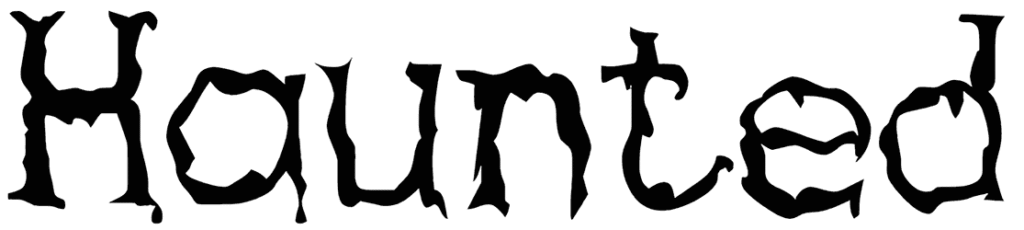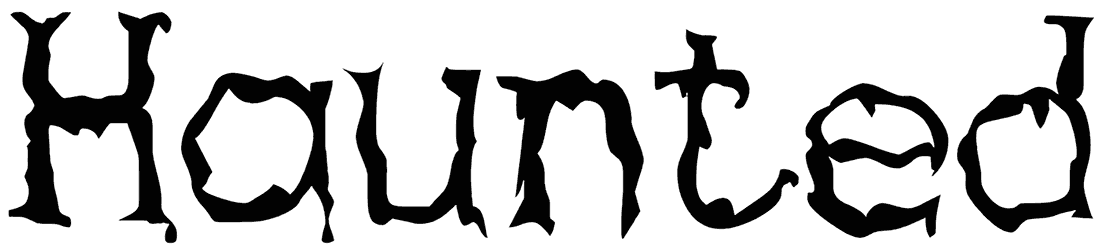
Haunted Font
Sometimes it would be better to utilize a strange font such as Haunted instead of overusing duplicate formal fonts to boost the visibility of your content and make a stronger impact on the audience.
Due to its wavy and dirty style, it might seat on video game posters, graffiti, stickers, or street brochures. Also, this horror font brings a sense of jauntiness, disorder, and smudgy to all of your creative ideas.